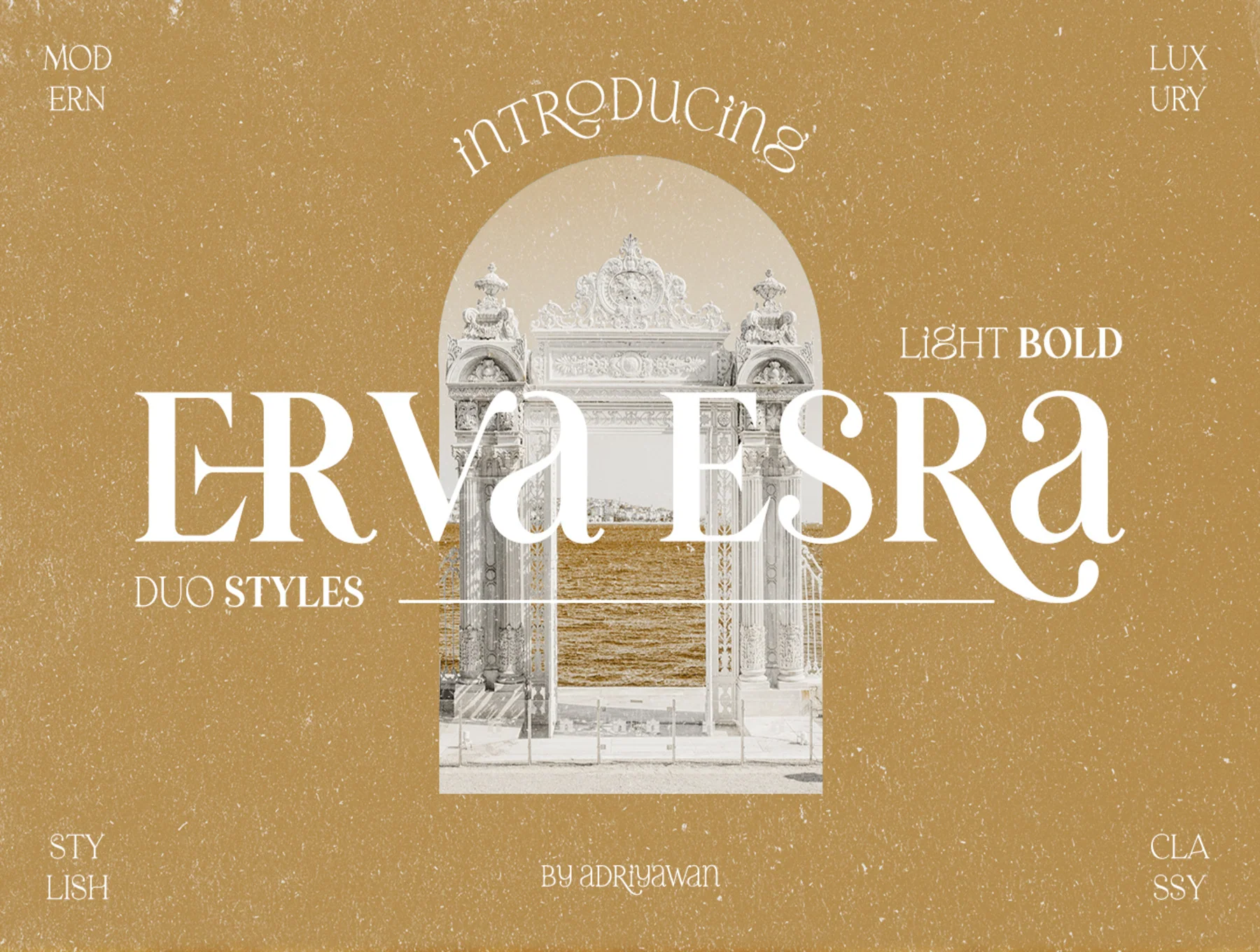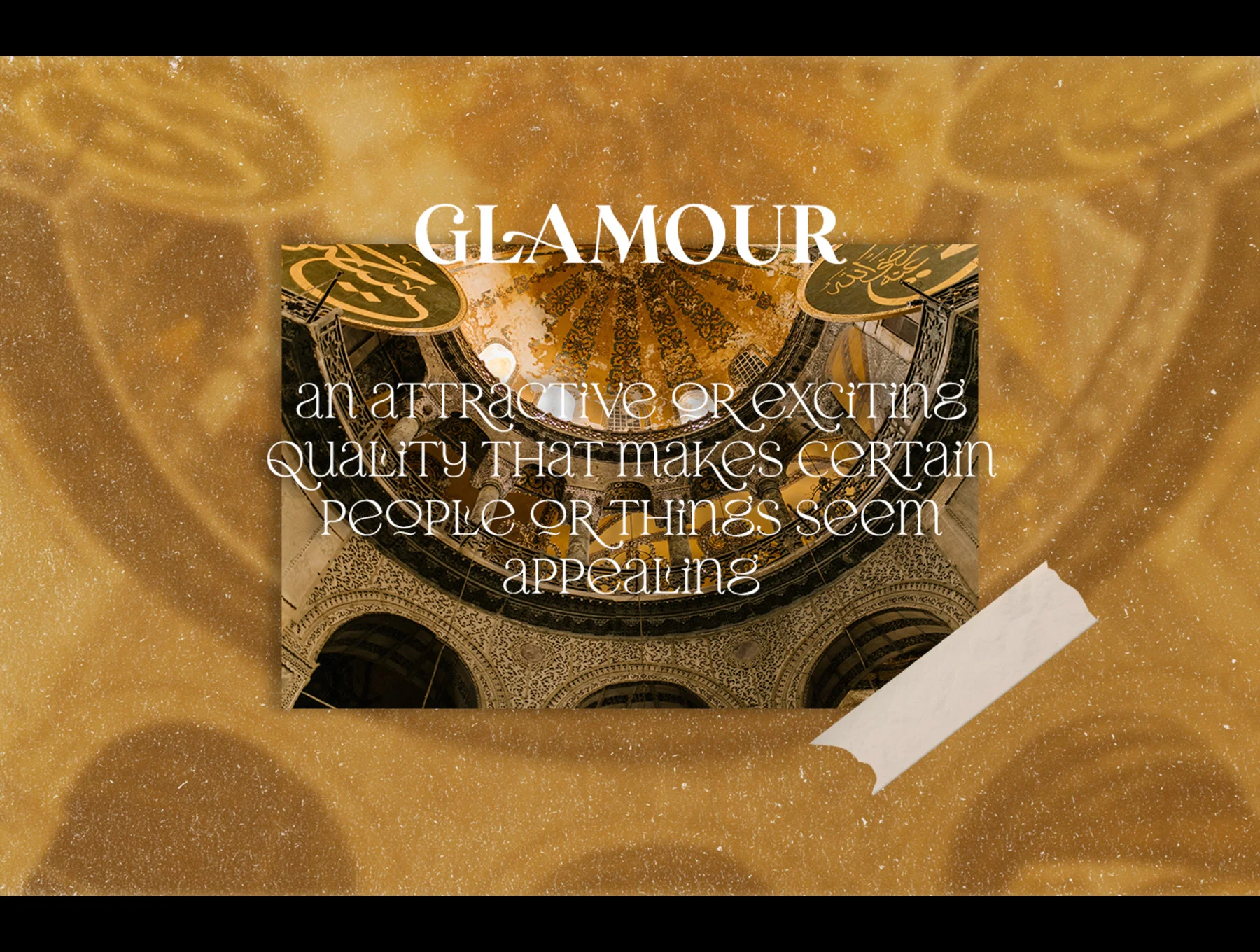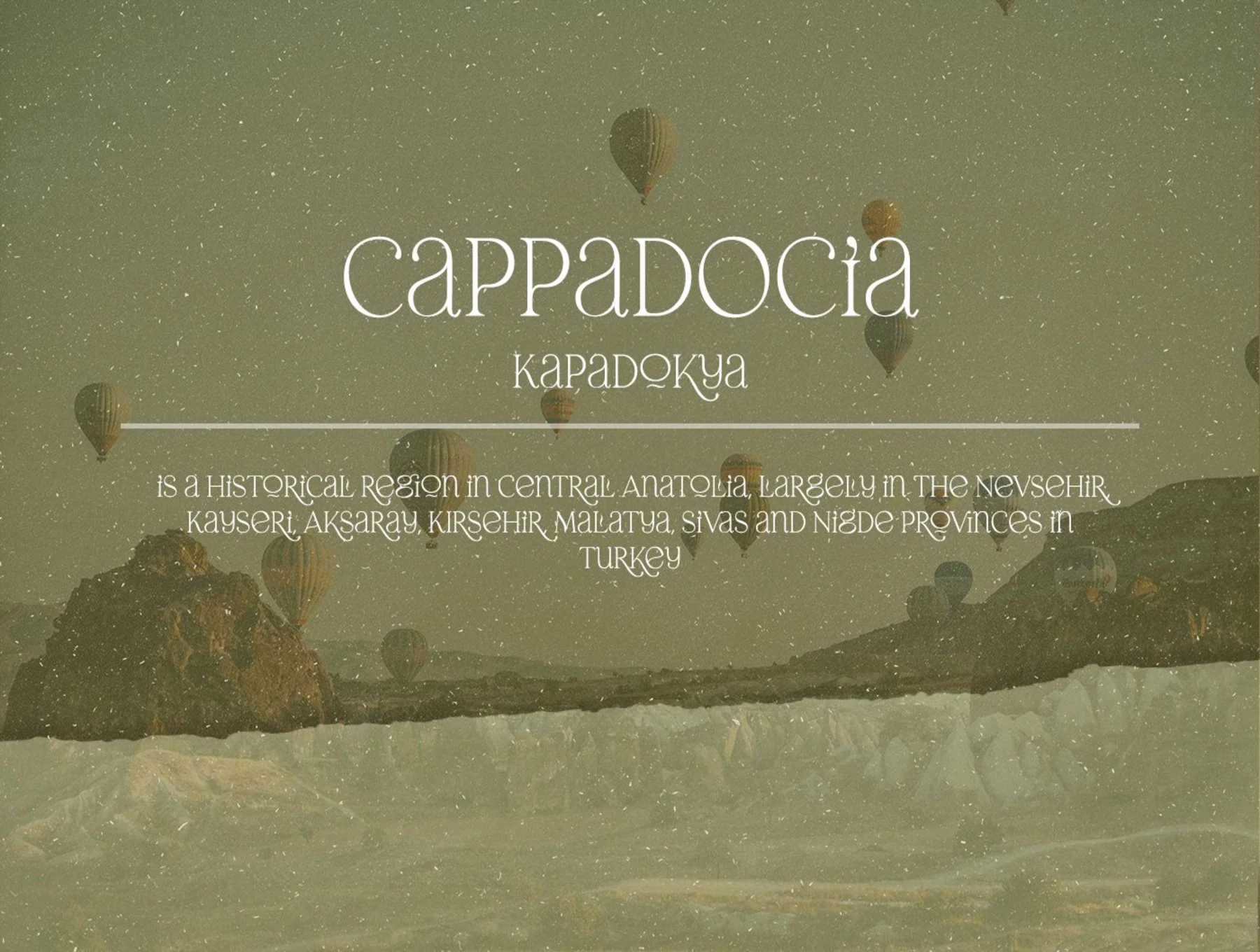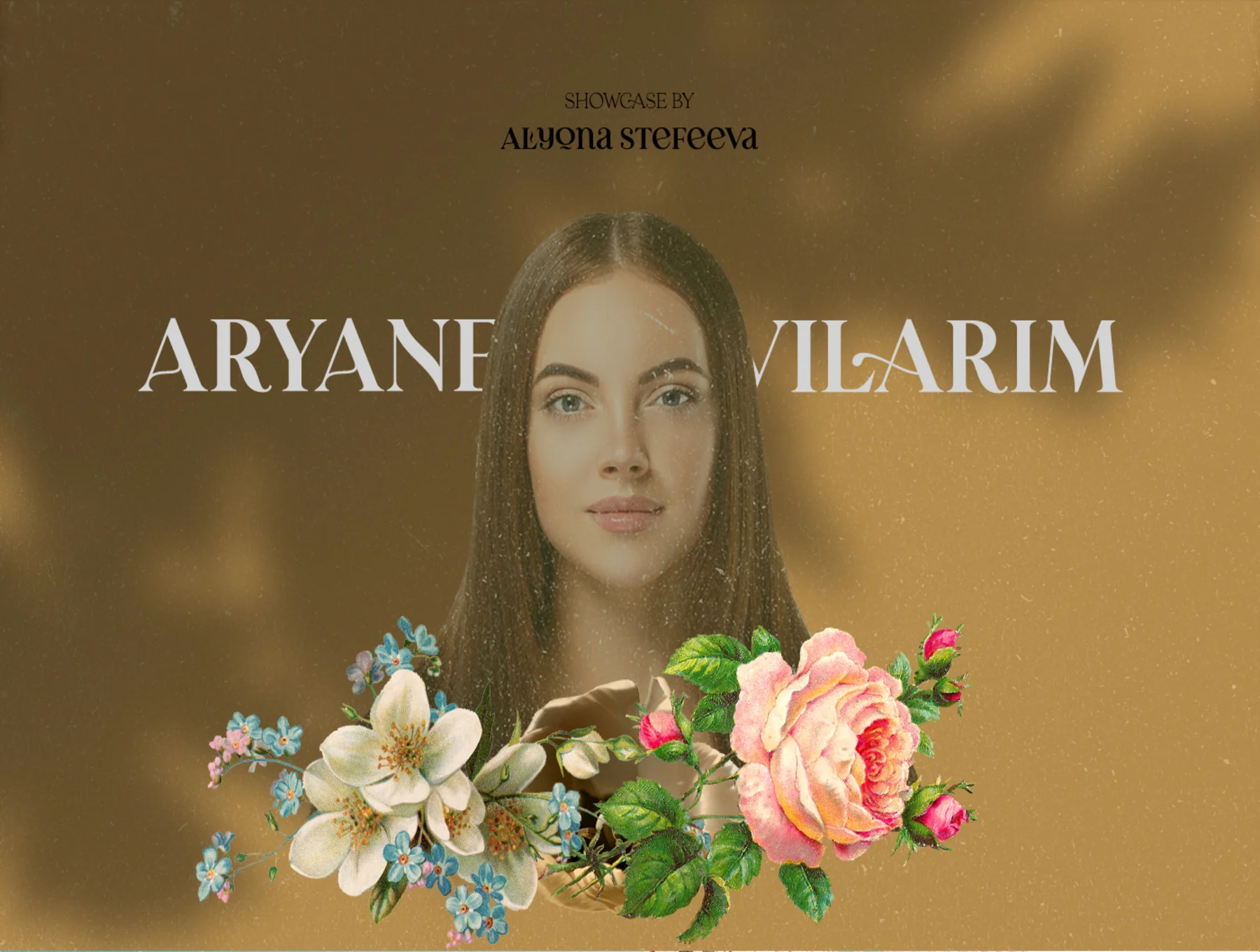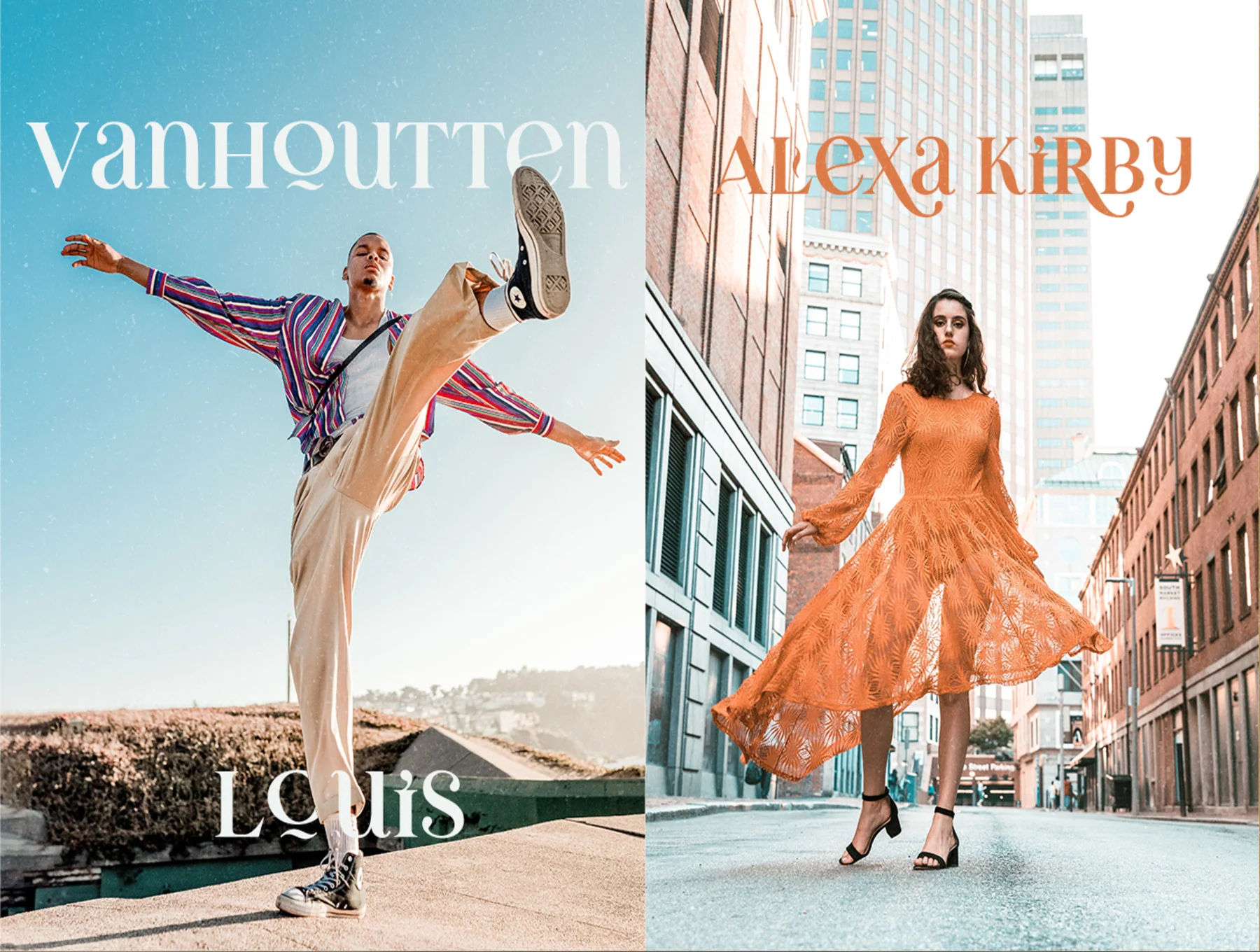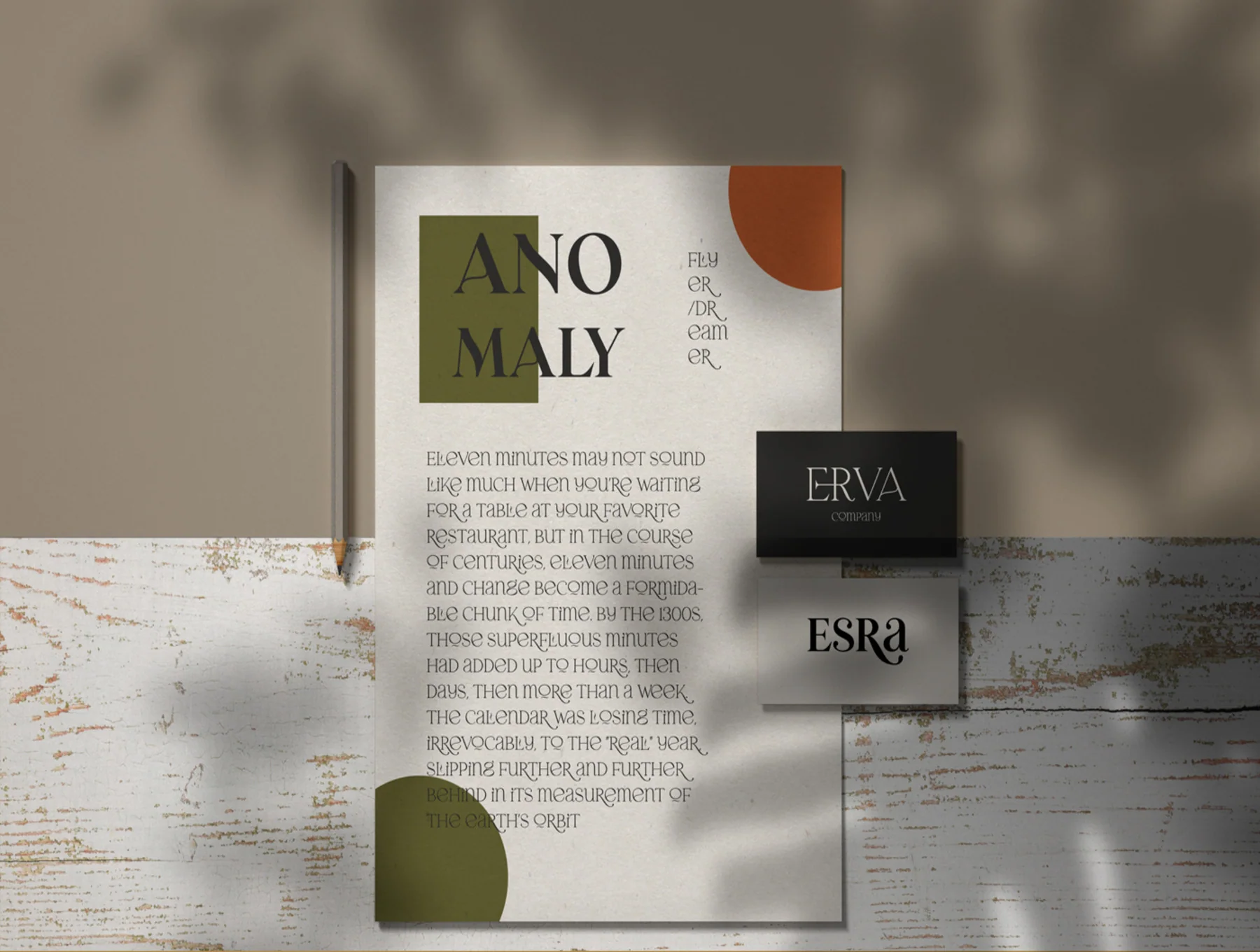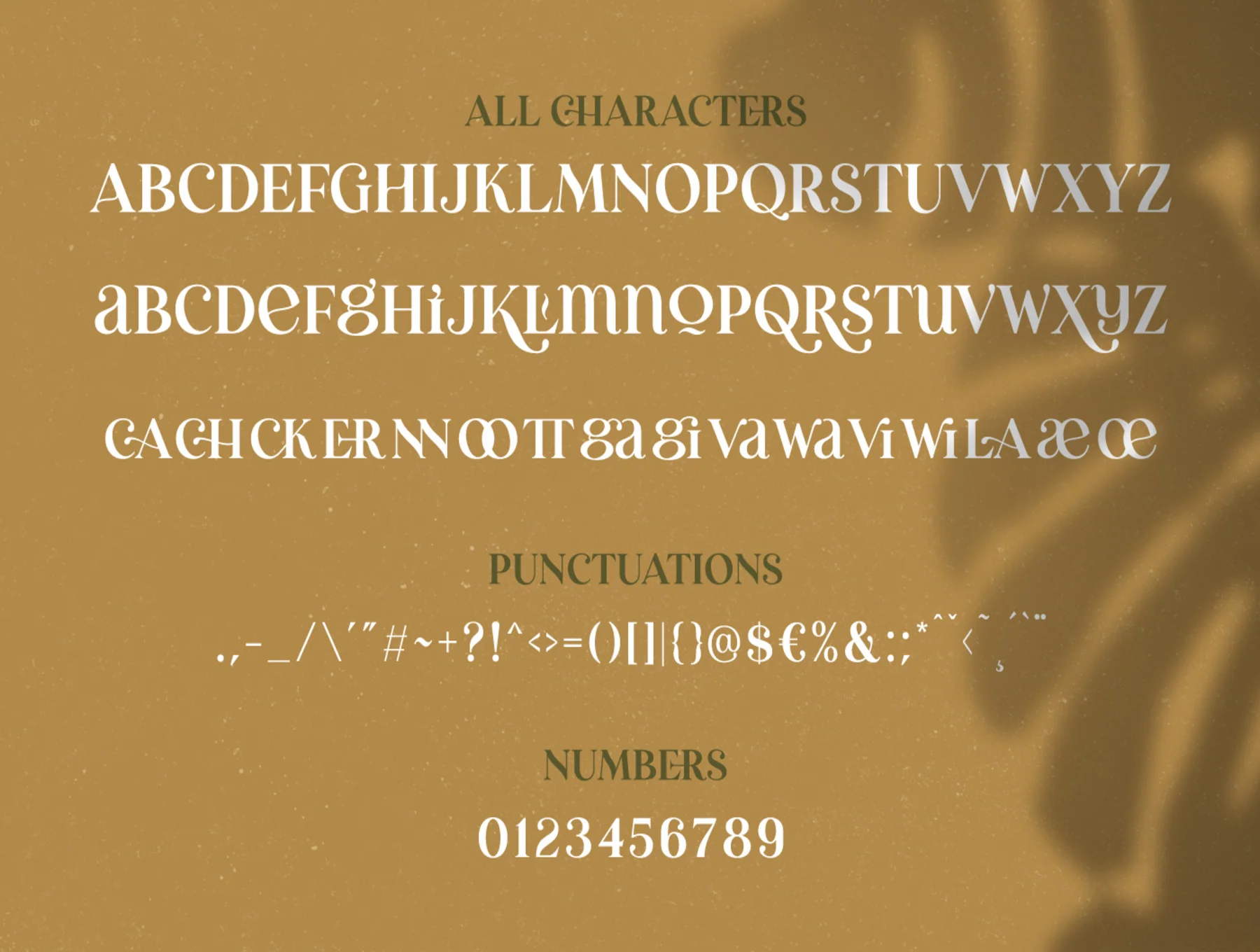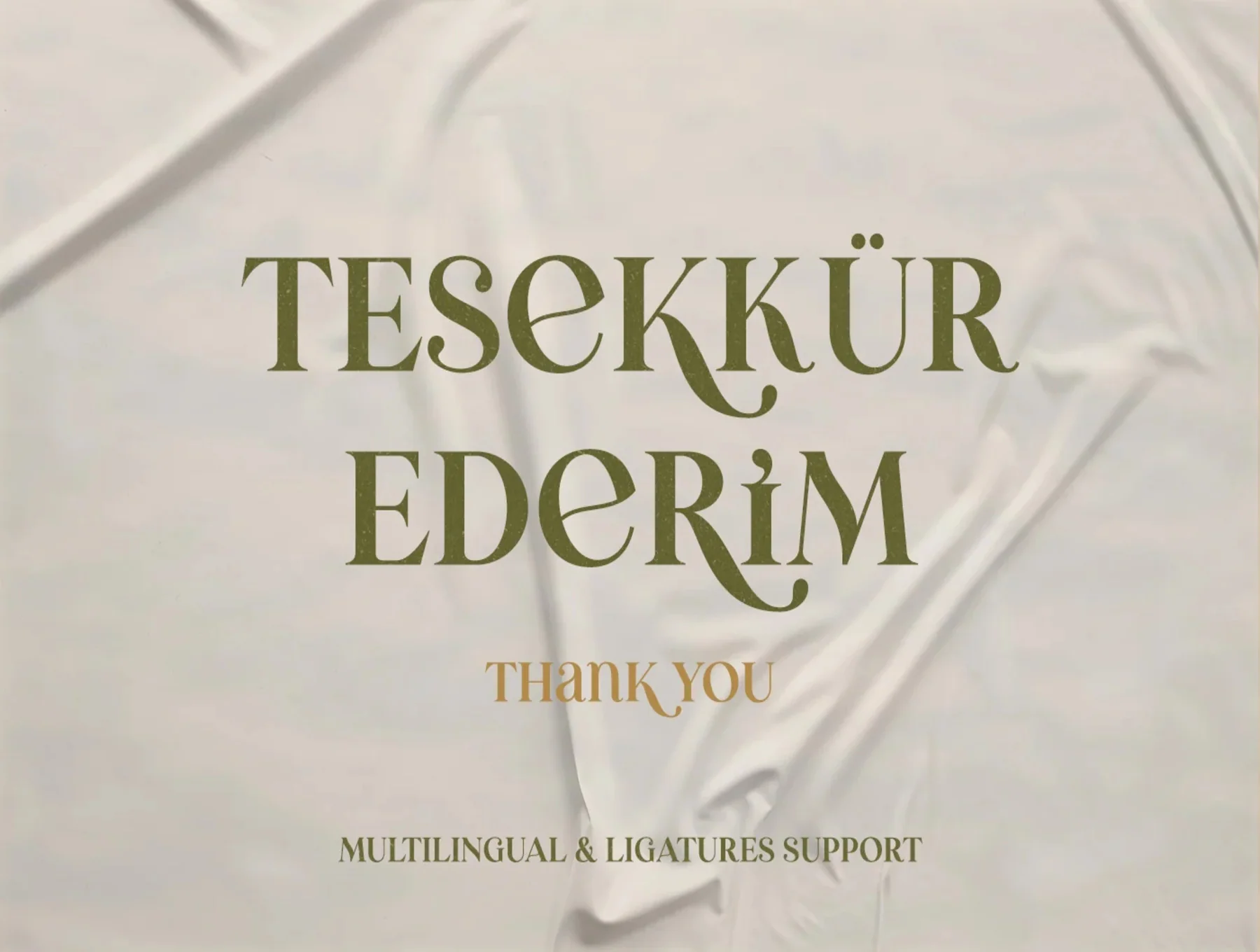
Erva Esra - Modern Quirky Serif Font
A chic modern serif font with a playful, distinctive flair
Light plus Bold styles
Worldwide accent coverage
Ligature support
Erva Esra is a contemporary serif typeface with a playful character and elegant flair. It comes in two weights, Light and Bold, making it ideal for templates, brochures, videos, ads, branding, logos, and other creative projects. Multilingual support is included.